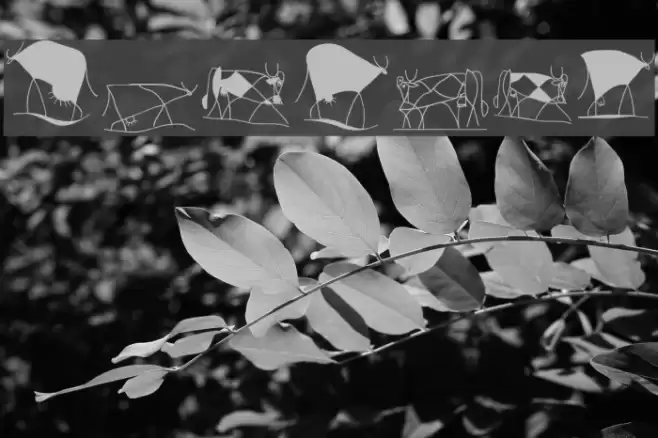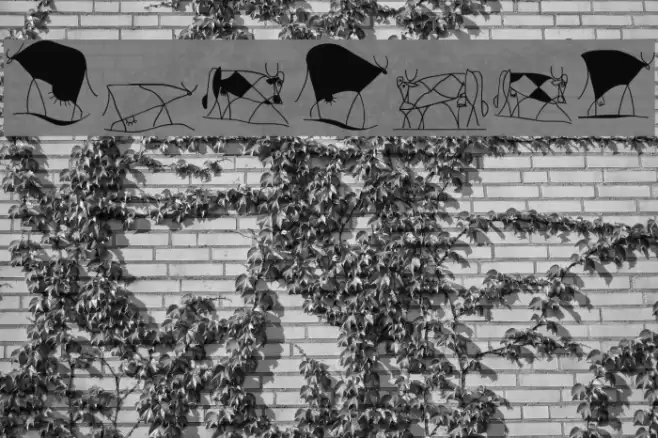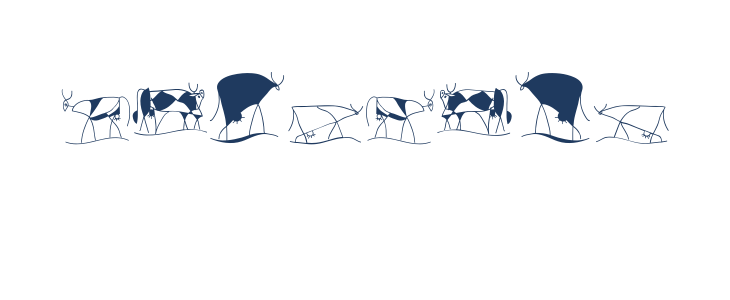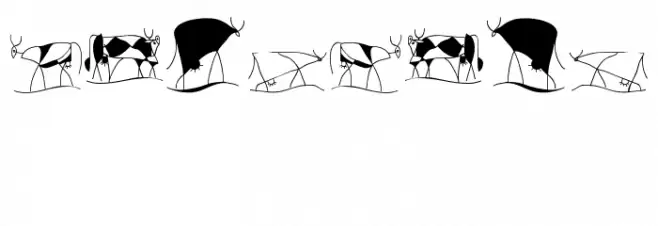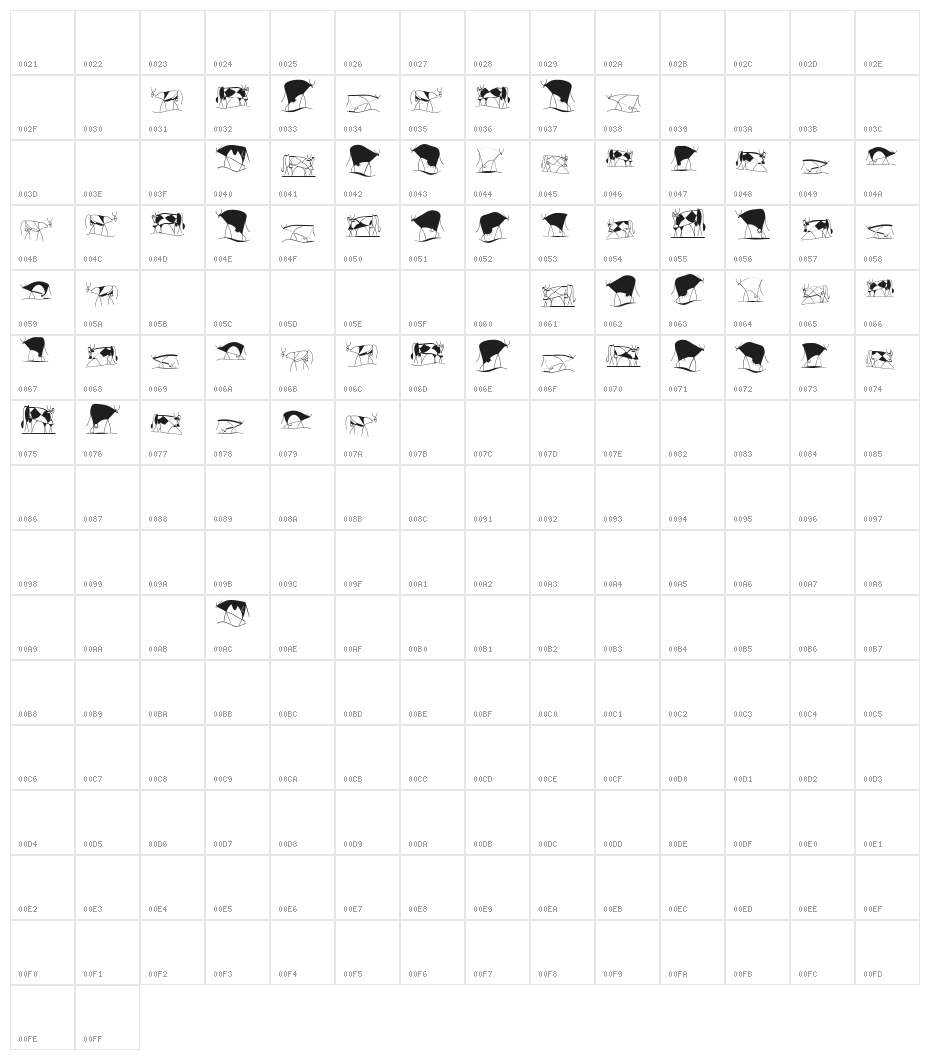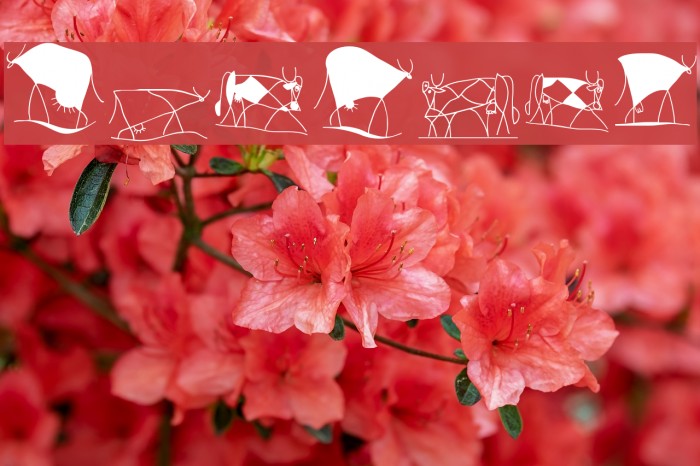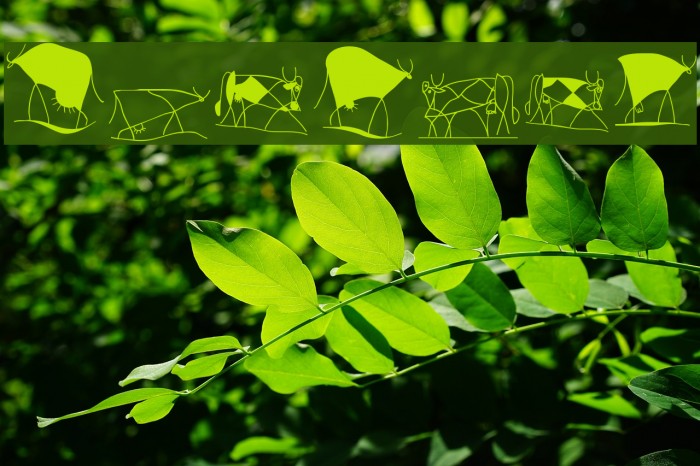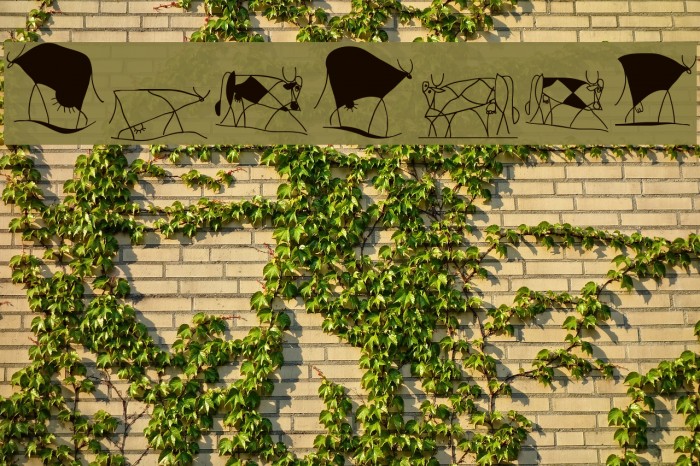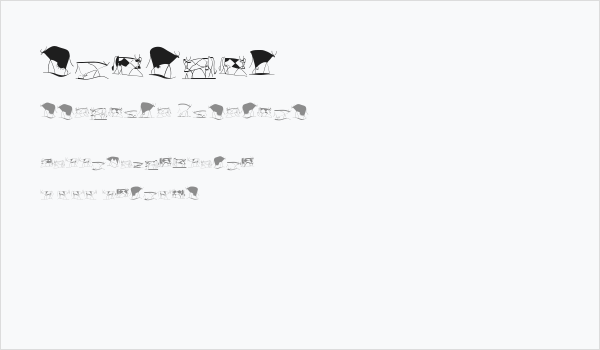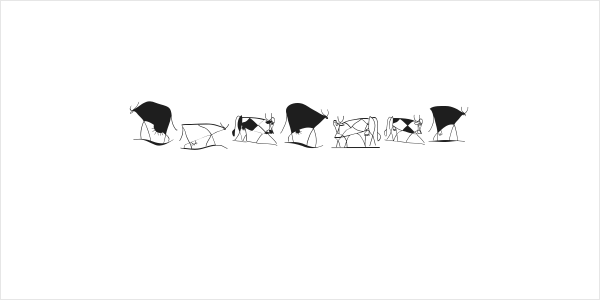
CowBats Font
CowBats Description
This is not a traditional font but rather a series of artistic representations of cows. Each character is depicted as a stylized cow, blending abstract and realistic elements. The designs are playful and imaginative, with varying levels of detail and contrast. The cows are depicted in different poses and orientations, creating a whimsical and unique visual experience. This set is more of an art piece than a functional typeface, offering a creative way to incorporate animal imagery into design projects.
Artistic cow illustrations replace traditional characters, offering a whimsical design element from Uncategorized fonts.
- Proposed Projects: Ideal for creative projects such as children's books, playful branding, art installations, or any design requiring a unique and imaginative touch.
- Use Case: Art projects, Decorative elements